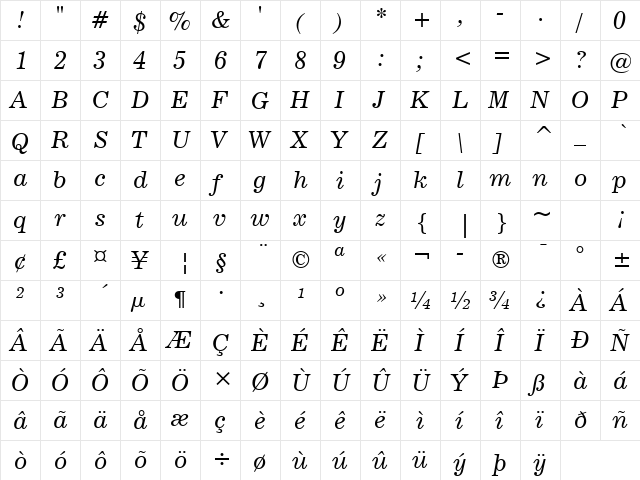
News705 BT Italic
Design Context for News705 BT Typeface
News705 BT is a composed and adaptable typeface that performs quietly and consistently across a wide range of design contexts. The slanted form adds forward momentum and visual energy.
Pro Tip: Try News705 BT for annotation and caption copy alongside an upright companion — the contrast in angle creates a dynamic but ordered typographic system.